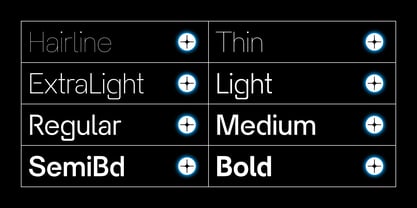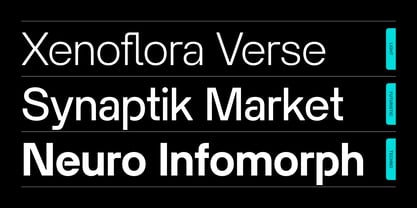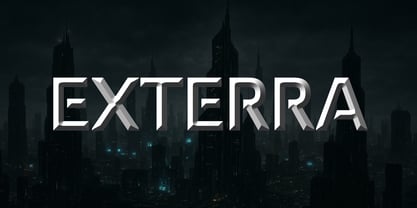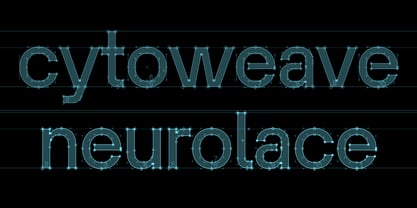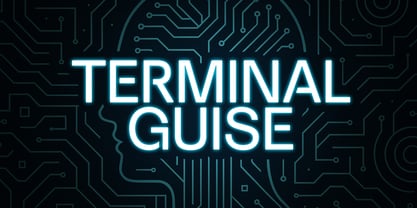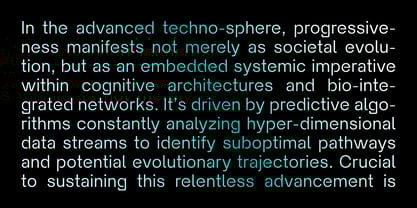
Terminal Guise
by Hanken Design Co.
The Terminal Guise Font Family was designed by Alfredo Marco Pradil and published by Hanken Design Co.. Terminal Guise contains 8 styles and family package options.
Terminal Guise is a display typeface with detached or uncompleted forms to create a graceful and stylistic termination.